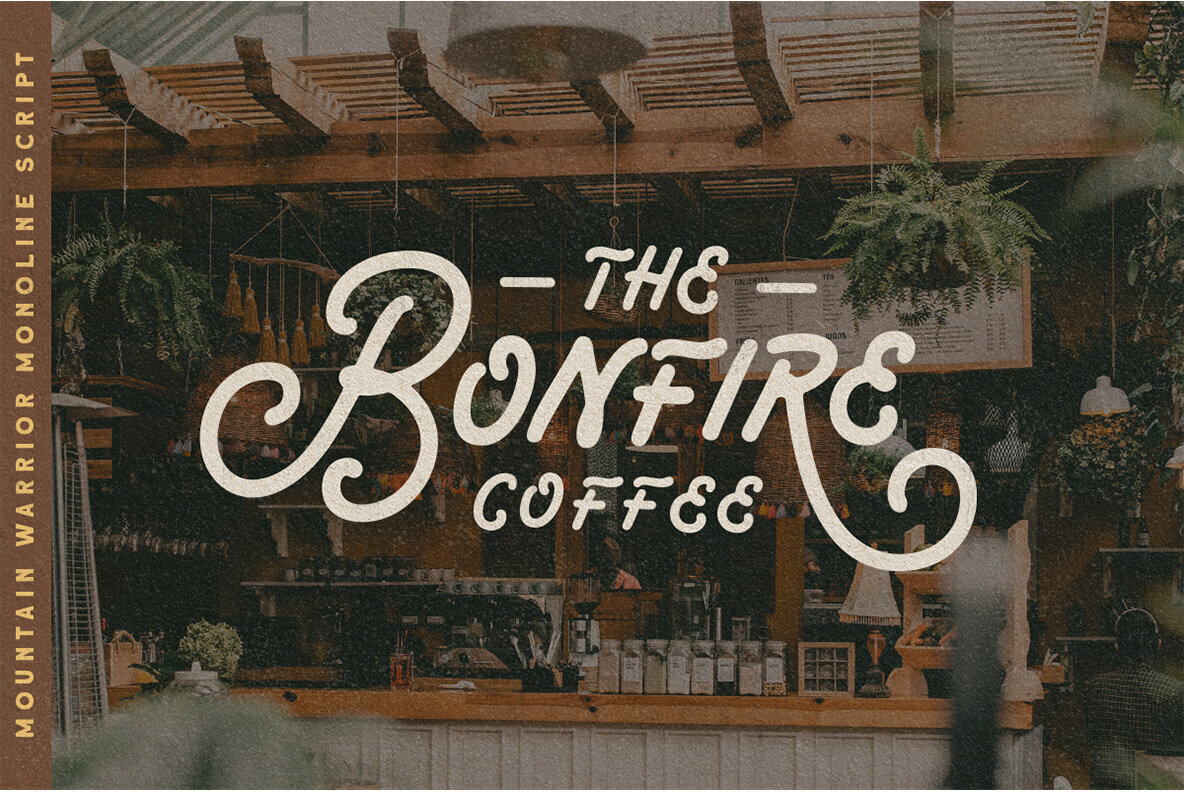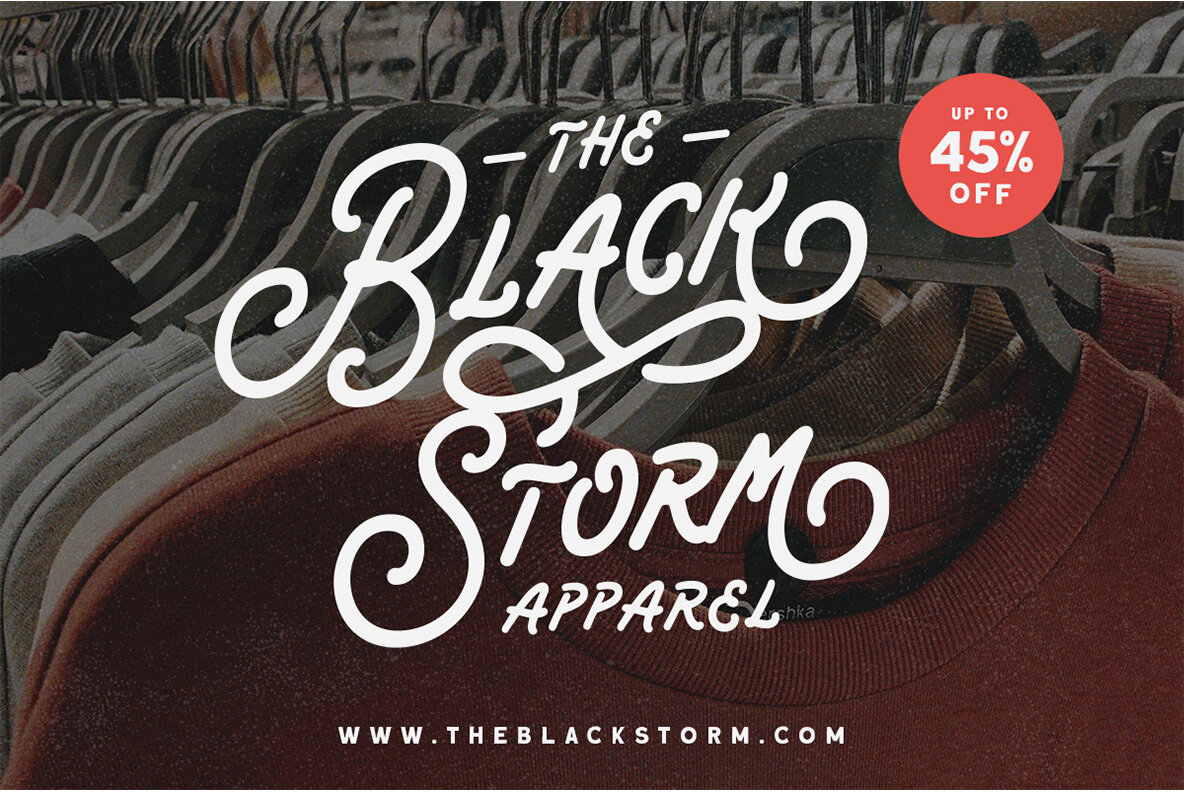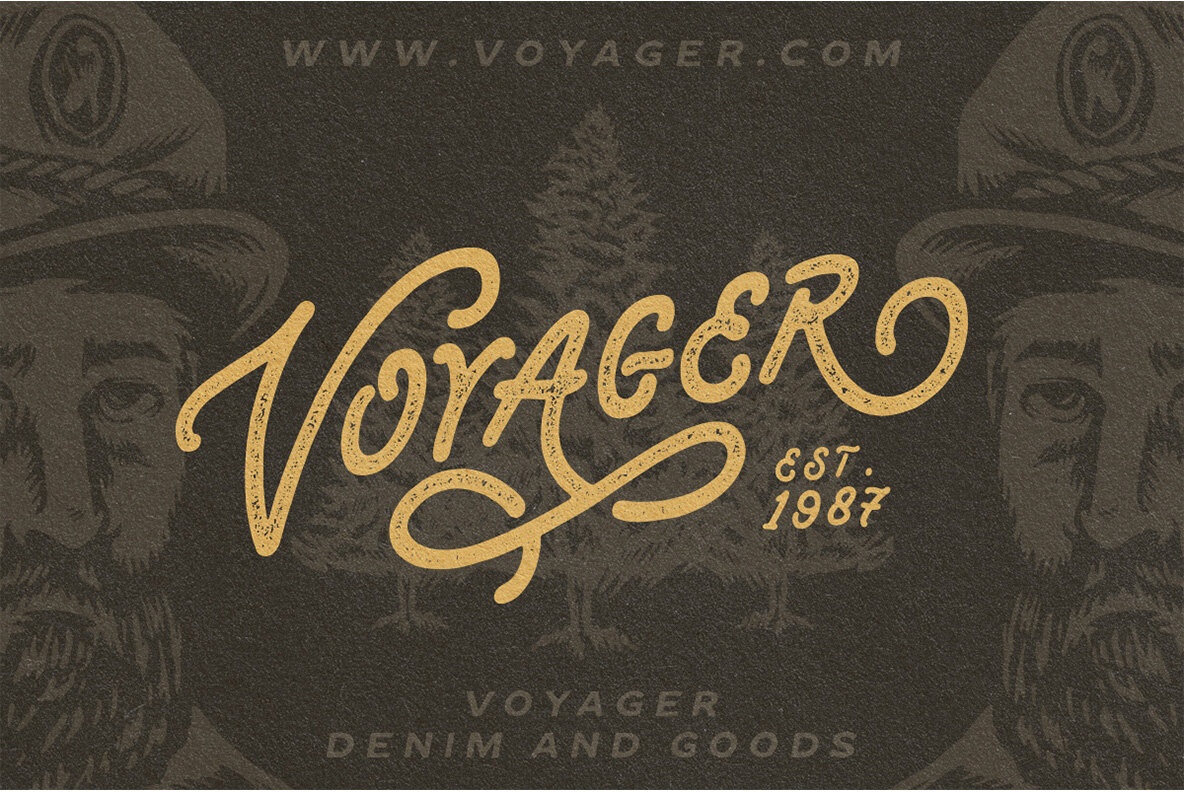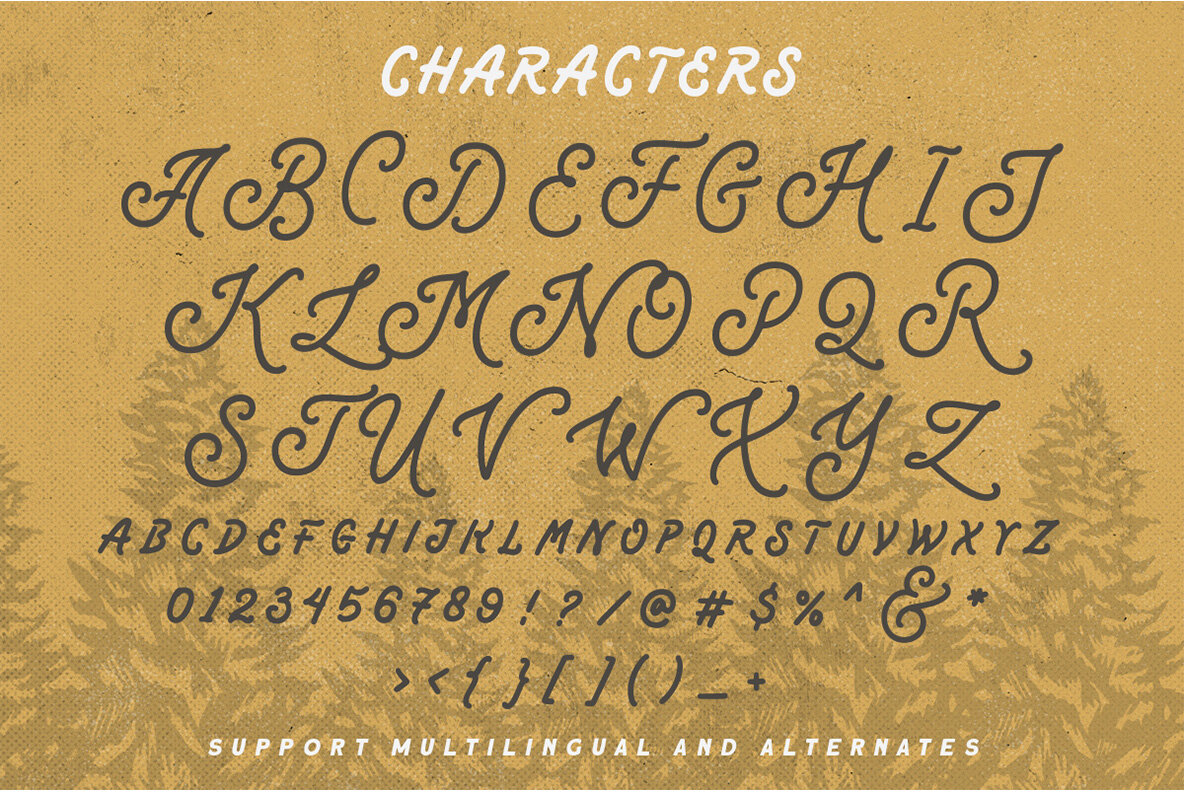
Mountain Warrior Font
Mountain Warrior is a versatile monoline script that exudes a retro charm, ideal for both formal and creative projects. Crafted for a range of applications, it excels in logos, headlines, and signage, as well as invitations, labels, and a plethora of advertising material.Mountain Warrior: A Retro-Inspired Monoline Script